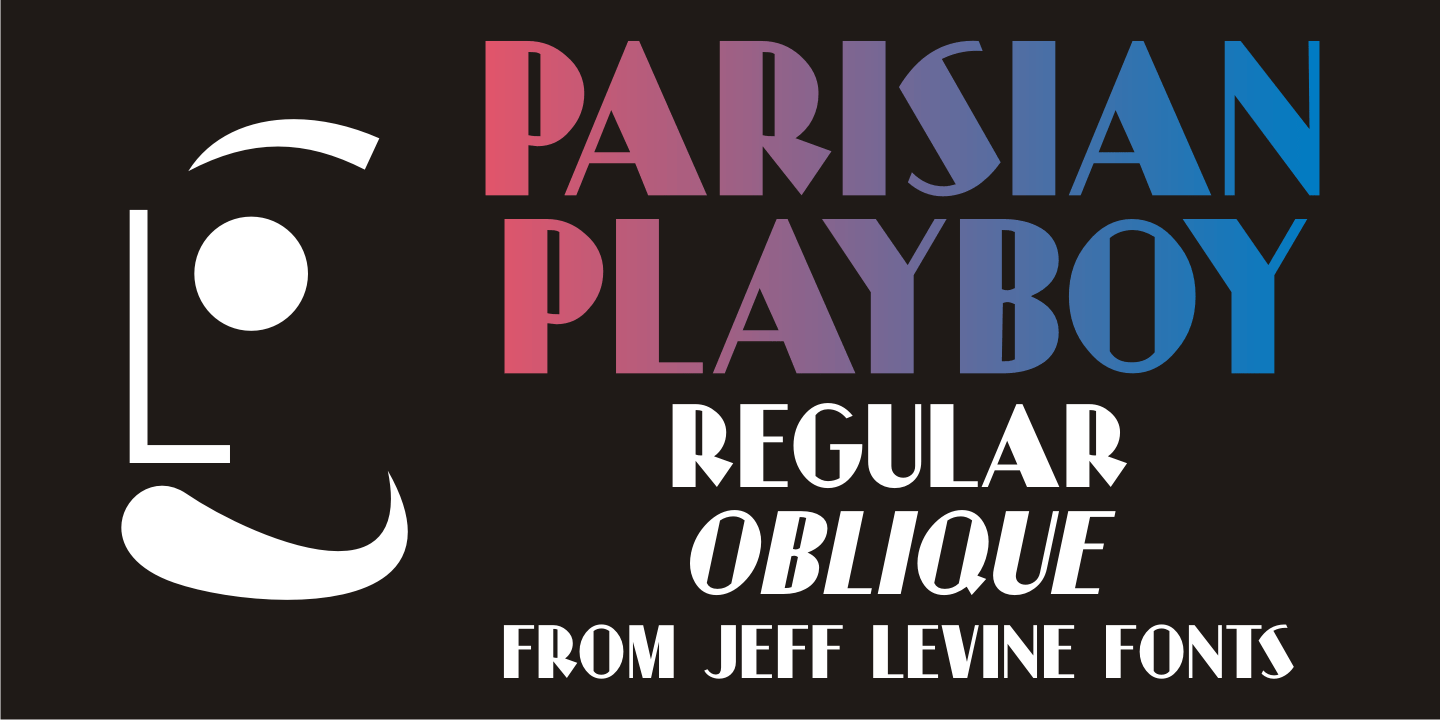
Parisian Playboy
Sheet music for the song 'My Ideal” (from the 1930 Paramount picture 'Playboy of Paris starring Maurice Chevalier) had the name of the movie hand lettered in an Art Deco, Broadway-influenced type design.
This became the inspiration for Parisian Playboy JNL, which is available in both regular and oblique versions.